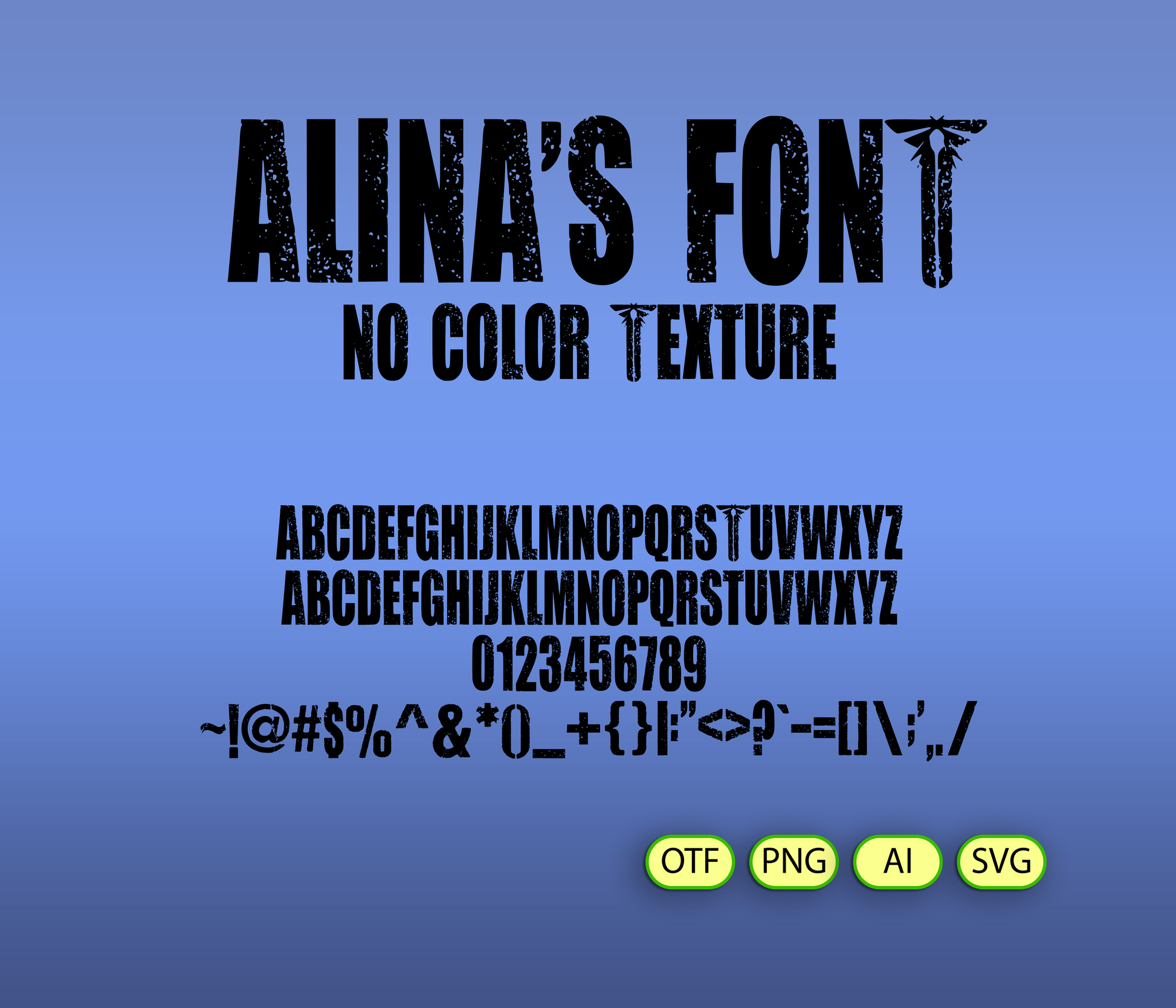
The Last Hope Font
Survive and Thrive: The Last Hope Font
Step into the hauntingly beautiful world of The Last Hope with our meticulously crafted font collection, inspired by the iconic typography of this legendary game series. This collection evokes the stark, post-apocalyptic atmosphere that has captivated millions. Each font captures the gritty, resilient spirit of the characters and their world, perfect for fans wanting a touch of this unforgettable universe in their projects.
Our Last Hope Font is a painstakingly accurate representation of the game's iconic typeface. Each character mirrors the rugged and distressed appearance seen throughout the game, ensuring authenticity. The character set includes not only the standard alphabet but also numbers and special characters, providing a comprehensive toolkit for all your creative needs.
Each letter is imbued with a distressed texture that mirrors a world ravaged by time and conflict. Comprehensive Character Set: Beyond basic alphabets, this font includes numbers, punctuation, and special characters, making it versatile for any project.